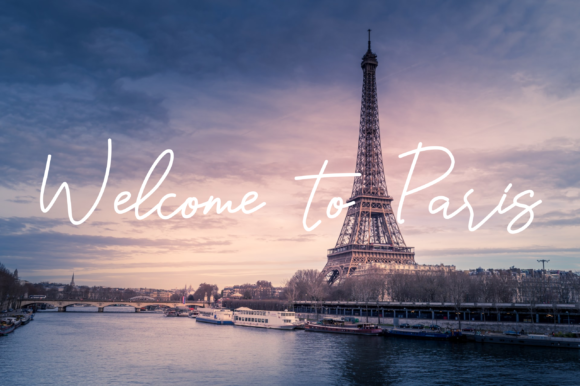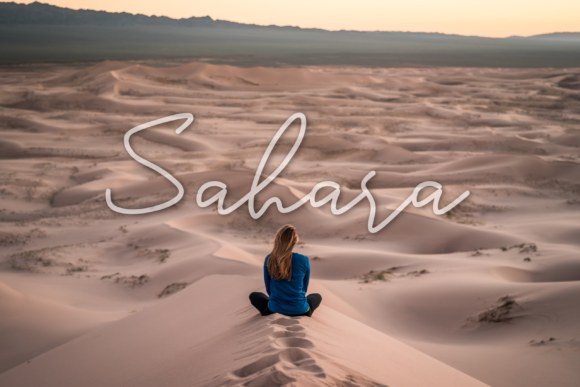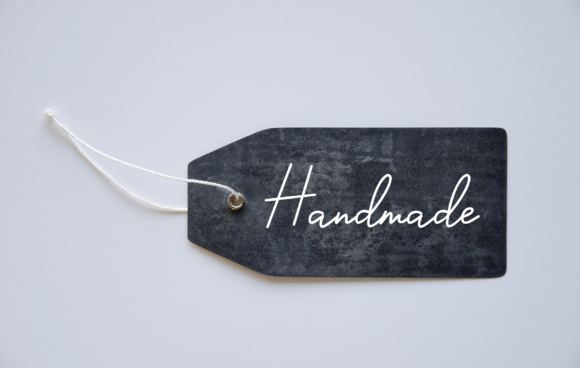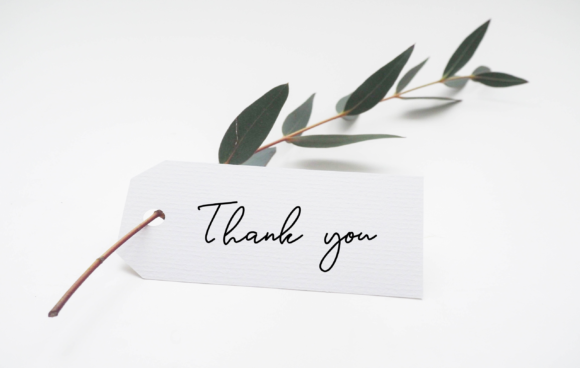
A Personal Review of Black Pink
- ✨ Elegant and refined design, perfect for high-end branding and luxury projects
- ✅ Beautifully crafted letters with a delicate touch, ideal for feminine and sophisticated designs
- 💫 Supports OpenType features, allowing for advanced typography and creative freedom
- 📚 Includes a range of glyphs and stylistic alternates, making it versatile for various design applications
While Black Pink is an exceptional font, there are a few minor limitations to consider:
- 🤔 May not be suitable for very large or bold designs, as it can lose its delicate charm
- ⚠️ Some characters may not work well in all contexts, requiring manual adjustment for optimal results
The Story Behind Black Pink
Black Pink was crafted with love and care by a talented type designer who aimed to create a font that exudes elegance and class. The designer’s inspiration came from the world of luxury fashion and high-end branding, where sophistication and refinement are paramount. With Black Pink, designers can add a touch of luxury to their projects and create stunning, professional-grade designs.
- Q: What type of projects is Black Pink suitable for?
- A: Black Pink is perfect for luxury branding, high-end designs, and feminine projects that require an elegant and refined look.
- Q: Does Black Pink support OpenType features?
- A: Yes, Black Pink supports OpenType features, allowing for advanced typography and creative freedom.